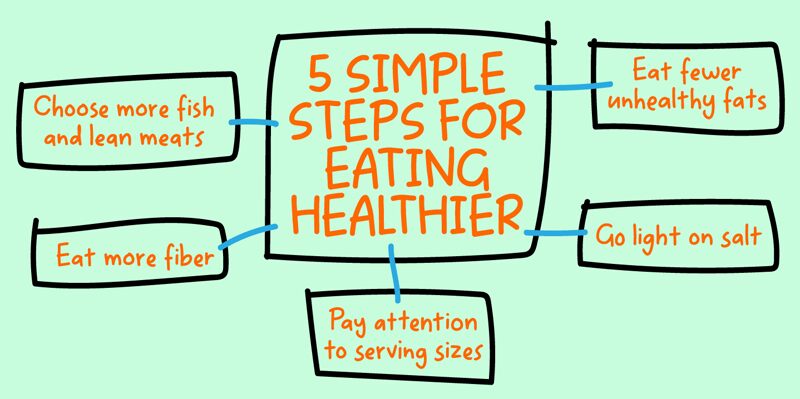
Empty Page, a captivating handwritten font by Pizzadude, adds an artistic touch to any project. With its semi-light weight, this font exudes elegance and sophistication. Its fluid strokes and unique characters make it perfect for various projects such as wedding invitations, fashion magazines, and branding materials for boutique stores. Whether you want to convey a sense of whimsy or add a personal touch to your designs, Empty Page will beautifully complement your creative endeavors. Let this font transform your empty canvas into a captivating masterpiece.
Empty Page DEMO